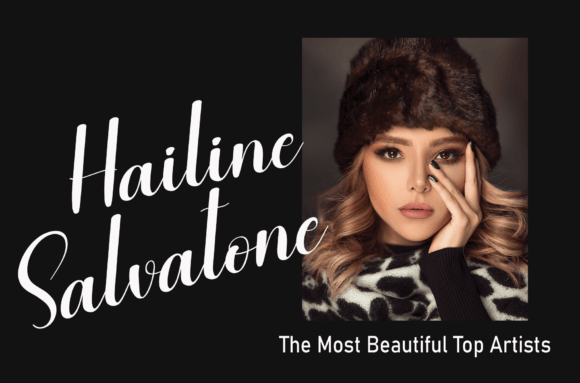
Fruitcake Font: The Sweet and Friendly Handwritten Font for Your Designs
Are you looking for a font that can add a fun and playful touch to your designs? Look no further than the Fruitcake Font! This sweet and friendly handwritten font is perfect for creating wedding invitations, cards, and other designs that require a personal and whimsical feel. In this article, we’ll take a closer look at the Fruitcake Font, its features, and how you can use it to elevate your designs.
What is Fruitcake Font?
Fruitcake Font is a beautiful, handwritten font that is designed to bring a fresh and neat feel to your designs. Its sweet and friendly style makes it perfect for a variety of projects, from wedding invitations and cards to posters and social media graphics. The font is carefully crafted to ensure that it is easy to read and looks great in both digital and print formats.
Key Features of Fruitcake Font
Handwritten Style
Fruitcake Font features a beautiful, handwritten style that gives it a personal and unique feel. The font is designed to look like it was written with a pen, making it perfect for creating designs that require a human touch.
Fresh and Neat
The Fruitcake Font is designed to be fresh and neat, making it perfect for creating designs that require a clean and modern feel. The font is carefully crafted to ensure that it is easy to read and looks great in both digital and print formats.
Versatile
Fruitcake Font is a versatile font that can be used for a variety of projects, from wedding invitations and cards to posters and social media graphics. Its sweet and friendly style makes it perfect for creating designs that require a personal and whimsical feel.
Step 3: Choose the Right Font Size
When using the Fruitcake Font, it’s essential to choose the right font size. The font looks great in a variety of sizes, but it’s best to use it in sizes between 10-24 points.
Step 4: Experiment with Different Colors
The Fruitcake Font looks great in a variety of colors, so don’t be afraid to experiment. You can use the font in bold colors or more subtle shades, depending on the design and the effect you’re trying to achieve.
Benefits of Using Fruitcake Font
Personal Touch
The Fruitcake Font adds a personal touch to your designs, making them more unique and engaging. The font’s handwritten style gives it a human feel, making it perfect for creating designs that require a personal touch.
Easy to Read
The Fruitcake Font is easy to read, making it perfect for creating designs that require a clear and concise message. The font is carefully crafted to ensure that it is easy to read in both digital and print formats.
Versatile
The Fruitcake Font is a versatile font that can be used for a variety of projects. Its sweet and friendly style makes it perfect for creating designs that require a personal and whimsical feel.
Common Uses of Fruitcake Font
Wedding Invitations
The Fruitcake Font is perfect for creating wedding invitations. Its sweet and friendly style makes it perfect for creating invitations that are both personal and elegant.
Cards
The Fruitcake Font is also great for creating cards. Its handwritten style gives it a personal touch, making it perfect for creating cards for special occasions.
Posters
The Fruitcake Font can also be used to create posters. Its bold and playful style makes it perfect for creating posters that require a fun and whimsical feel.
Social Media Graphics
The Fruitcake Font is also great for creating social media graphics. Its sweet and friendly style makes it perfect for creating graphics that are both personal and engaging.
In conclusion, the Fruitcake Font is a sweet and friendly handwritten font that is perfect for creating designs that require a personal and whimsical feel. Its fresh and neat style makes it perfect for creating wedding invitations, cards, posters, and social media graphics. With its versatility and ease of use, the Fruitcake Font is a great addition to any designer’s toolkit.